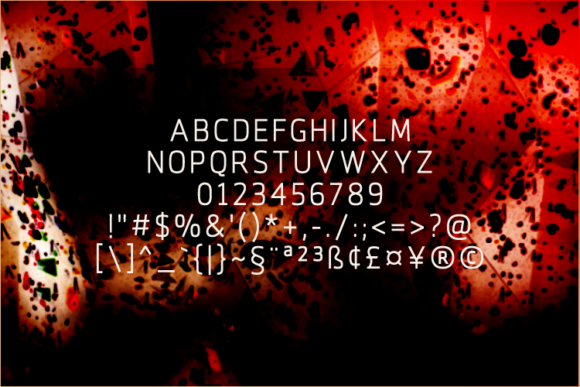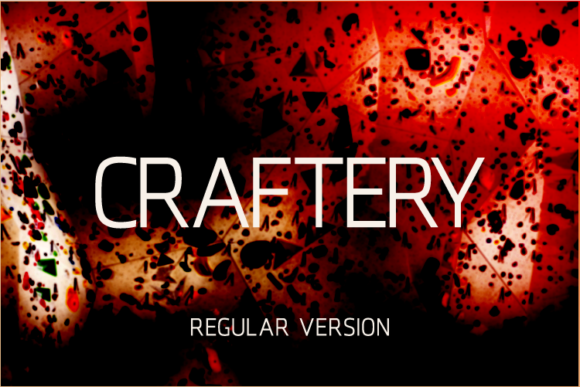
HomeSans Serif FontsCraftery Font Sans Serif Fonts Craftery Font FacebookXPinterestWhatsApp Craftery Font 1 of 2 About Craftery Font Craftery is a modern sans serif font inspired by the simplicity of classic geometric shapes. It will add a minimalist feel to any design project! DOWNLOAD NOW People also explored Botanic Font Slavelake Font Novan Duo Font Spring Shower Font Kenir Font Jingme Font Marybeth Font Valentijn Font Sunflowers Font 385 0 TagsCraftery Font Previous articleCraftery Medium FontNext articleCraftery Light Font LEAVE A REPLY Cancel reply Comment: Please enter your comment! Name:* Please enter your name here Email:* You have entered an incorrect email address! Please enter your email address here Website: Save my name, email, and website in this browser for the next time I comment. Personal Use Free Trio Personal Use Free Read more about this font Splatter Splash Personal Use Free Read more about this font White Rose Personal Use Free Read more about this font Solaria Personal Use Free Read more about this font BLOG Where to Buy American Fonts Online in 2024 Where to Buy American Fonts Online: The Ultimate Guide for 2024 Looking for the perfect American font to elevate your design projects? You're in the... The 10 Best Handwriting Fonts to Add Personality to Your Designs Top 7 Google Fonts Alternatives for Faster and Privacy-Friendly Web Design (2025) How to Install and Use Fonts on Windows, macOS, and Web Projects